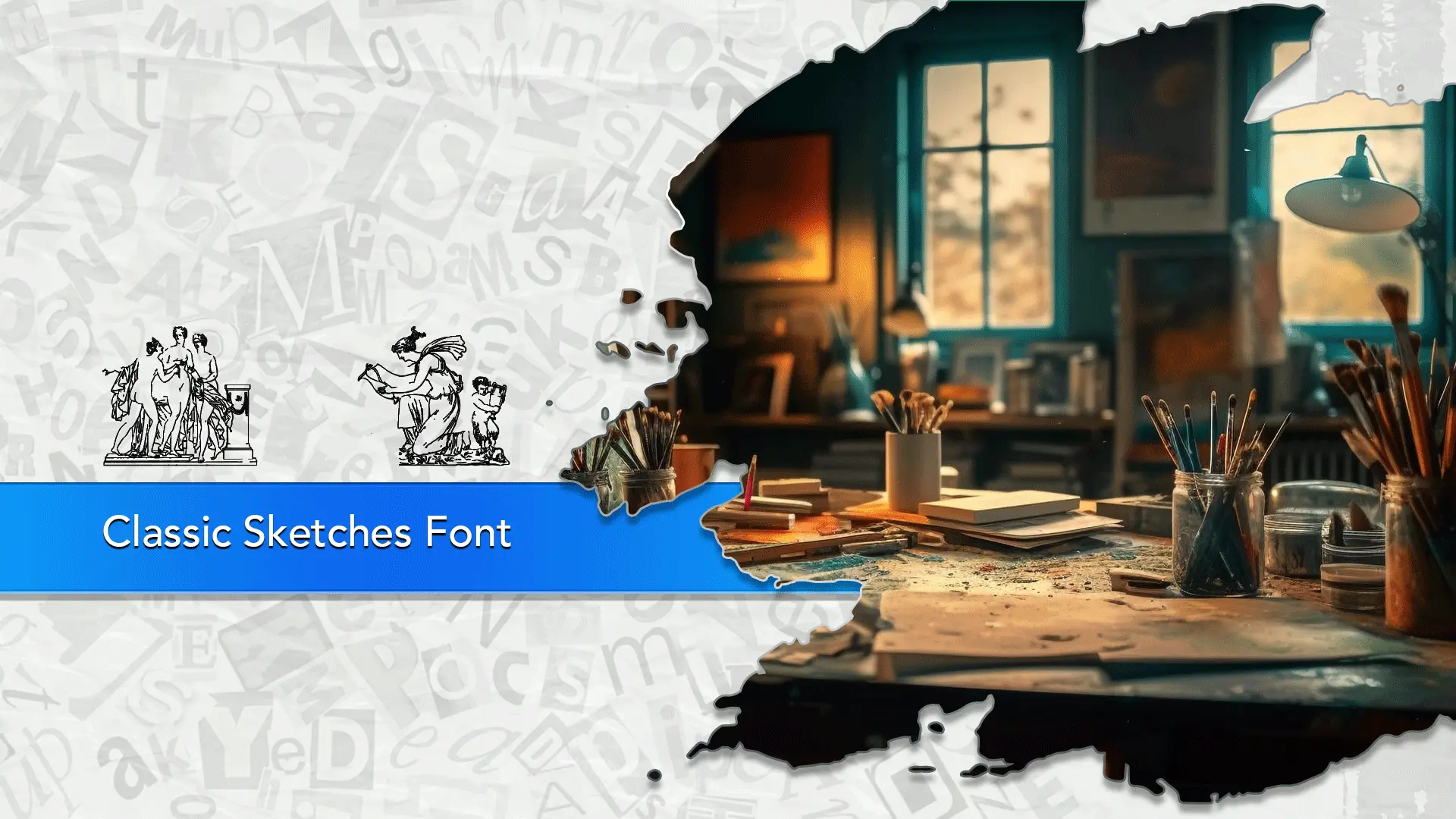
The Classic Sketches font family may be ideal for you if you enjoy working on an artistic design project. The lively, expressive look of this typeface, which was created by Intellecta Design, makes it ideal for Artistic and Creative Projects(Illustrations and Graphic Novels- Titles, chapter headings, or dialogue bubbles where a hand-drawn feel is desired ), Art Exhibition Titles or Labels, Portfolio Headings, DIY and Craft Projects, Branding for Artisanal or Niche Businesses, Invitations and Event Materials(Wedding Invitations, Party or Event Invitations, Personalized Stationery) and other light-hearted visual projects.
Regular are the one primary font styles of the Classic Sketches font family. You may build dynamic, visually appealing text layouts with the distinct flair that each style offers. With crisp, readable lines and a relaxed tone.